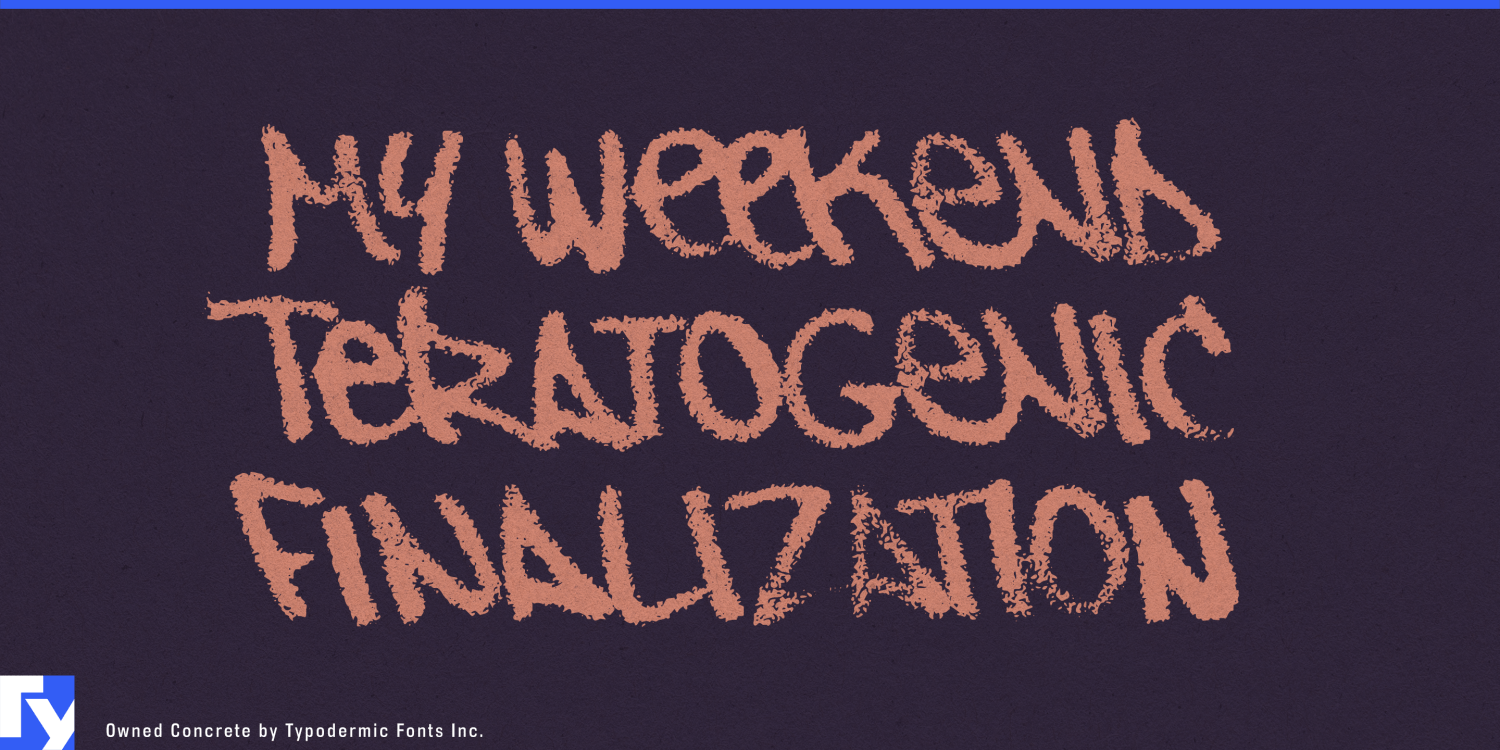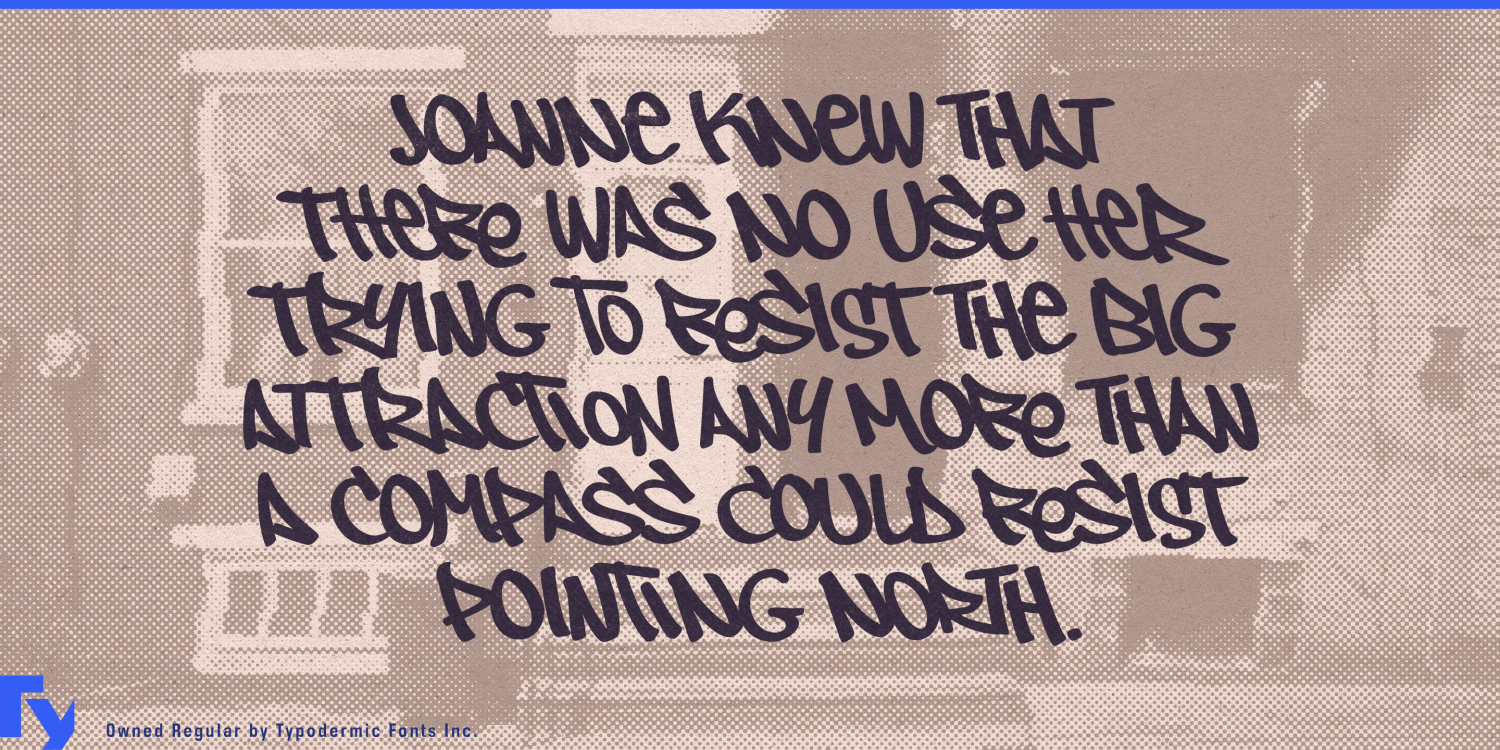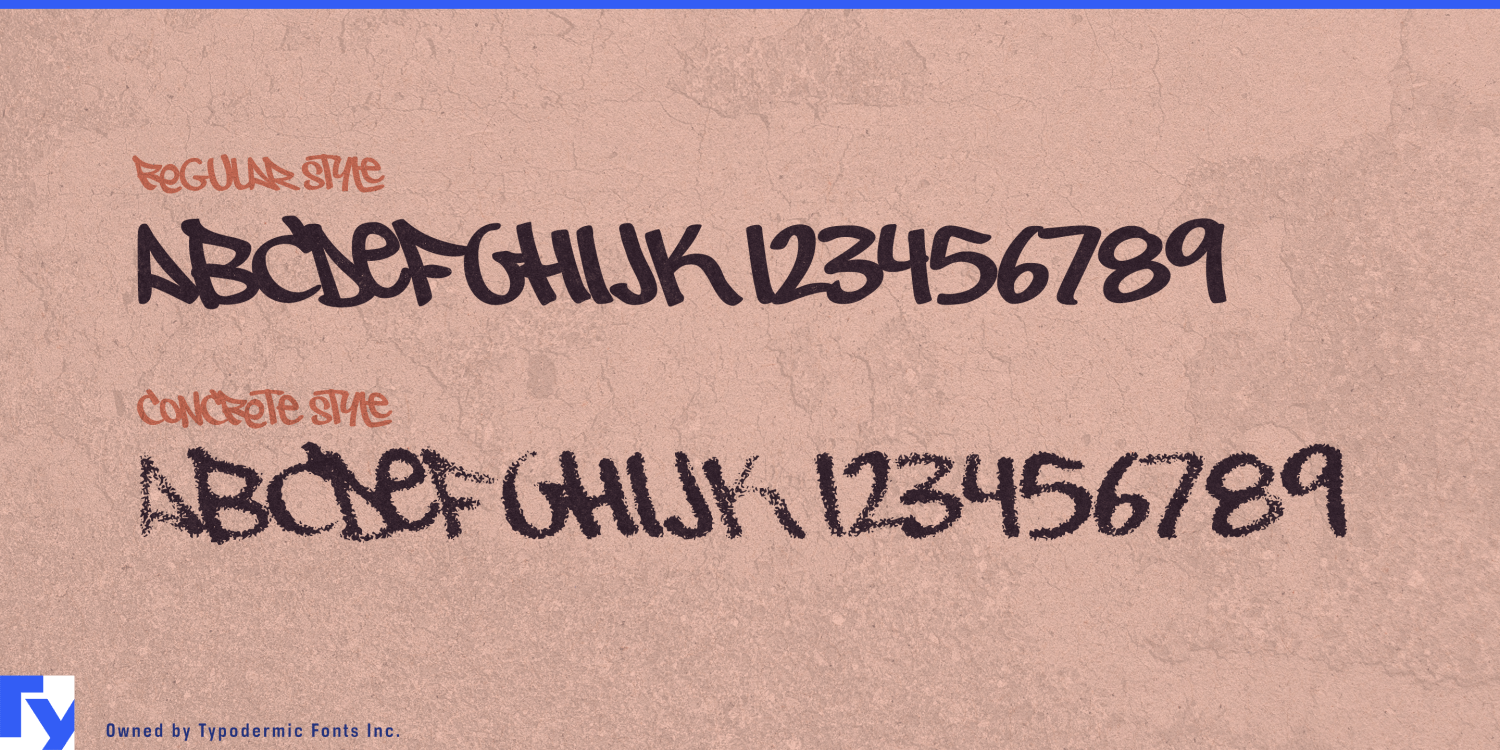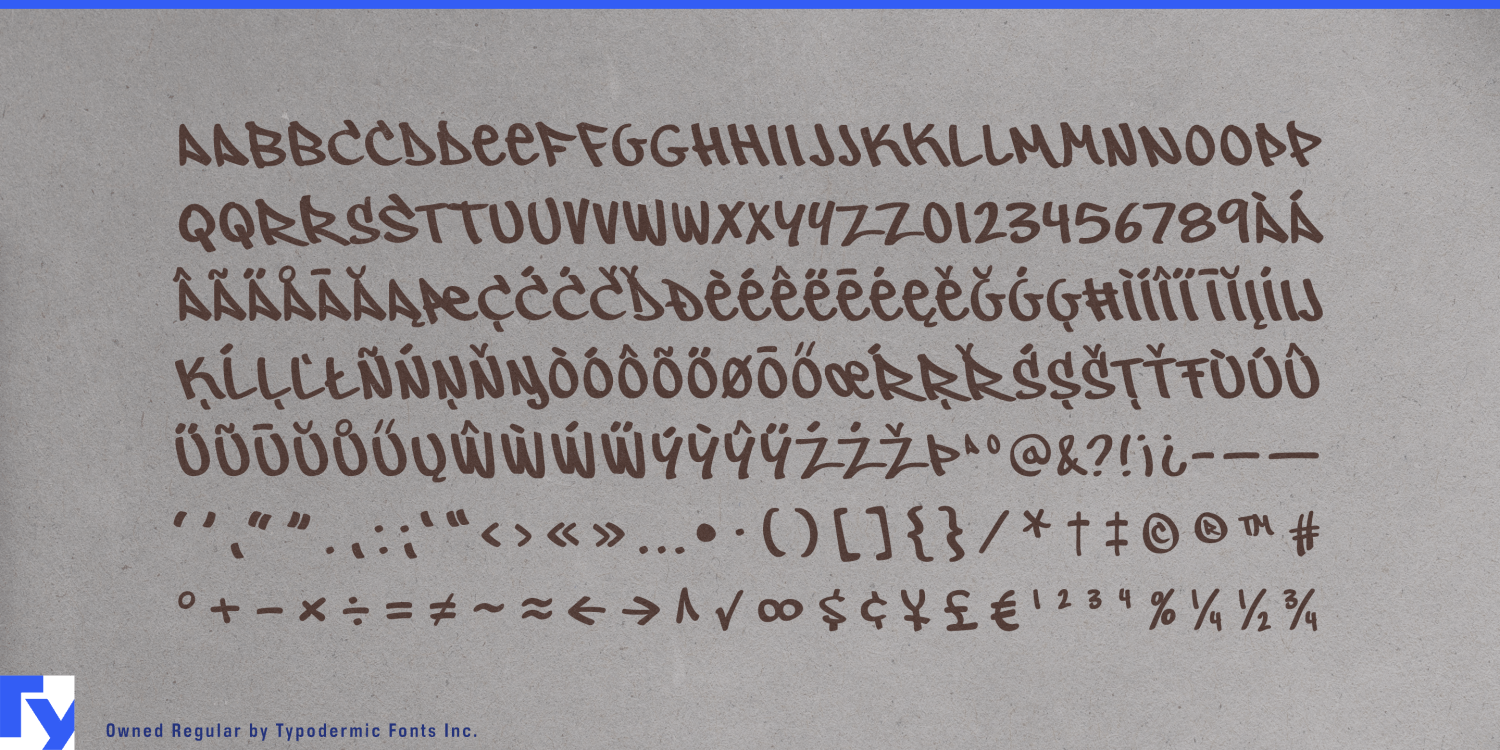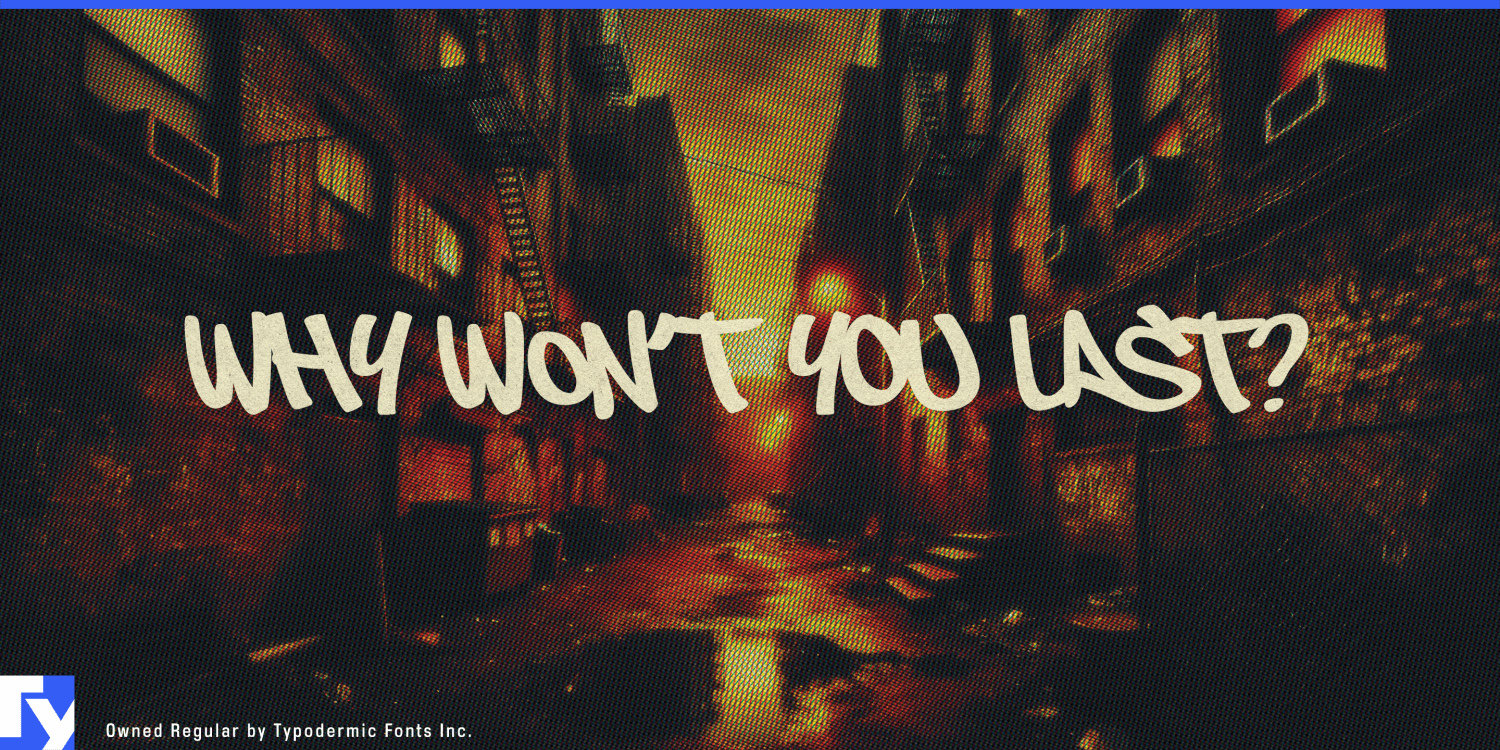
About Owned
Owned is a stunning embodiment of the urban aesthetic, with its authentic marker graffiti look and feel. This typeface is a perfect fusion of style and substance, as it captures the essence of streetwise design. Its pragmatic ligatures are not only visually…